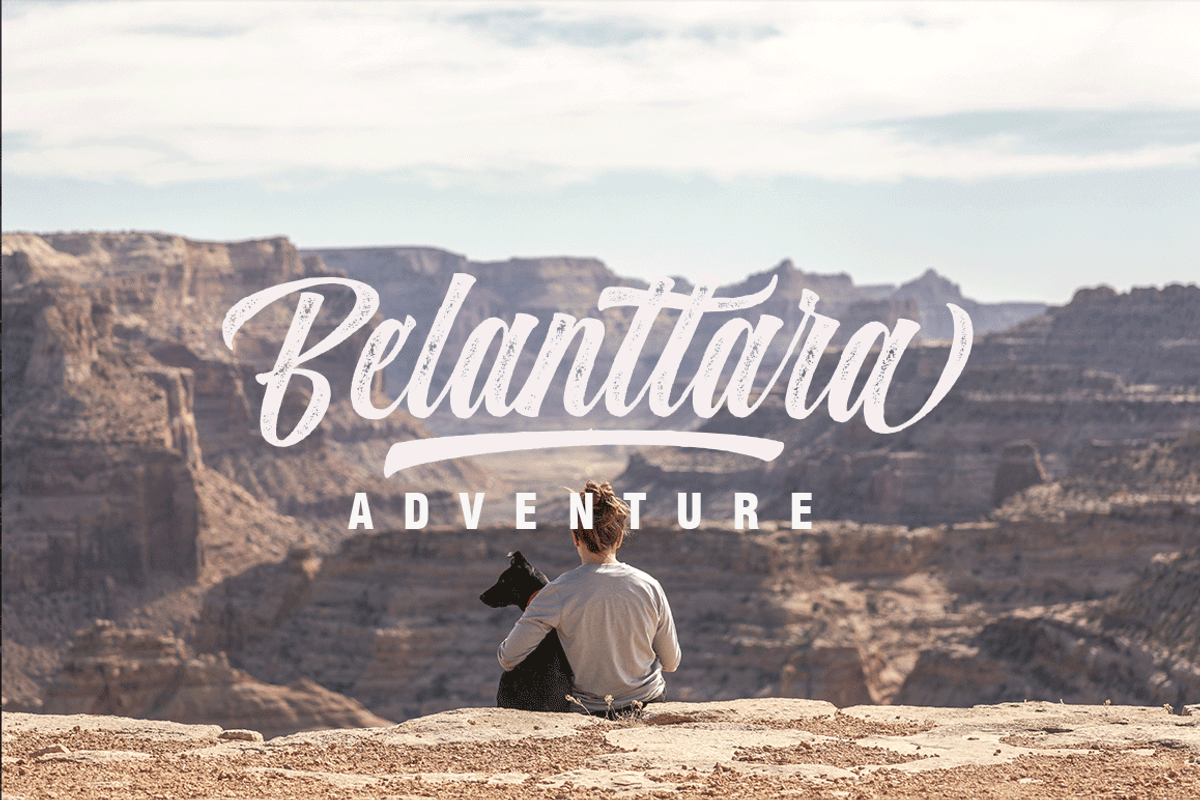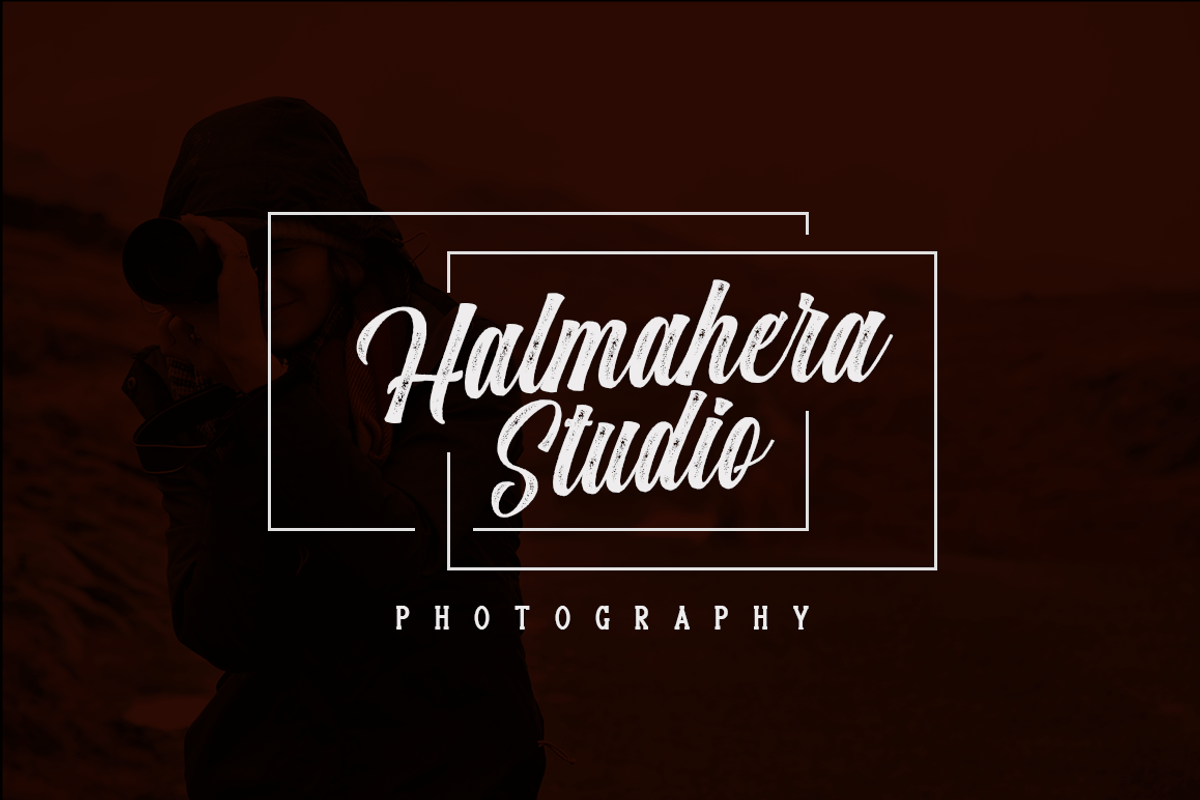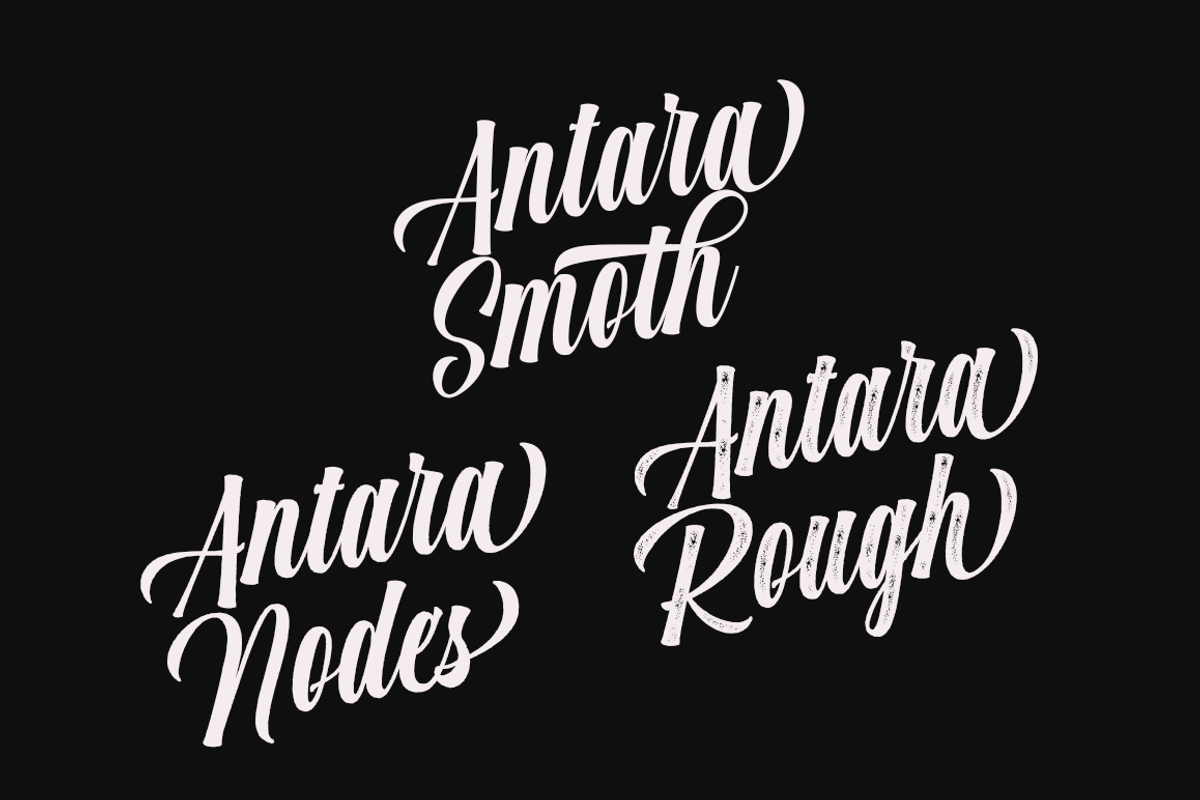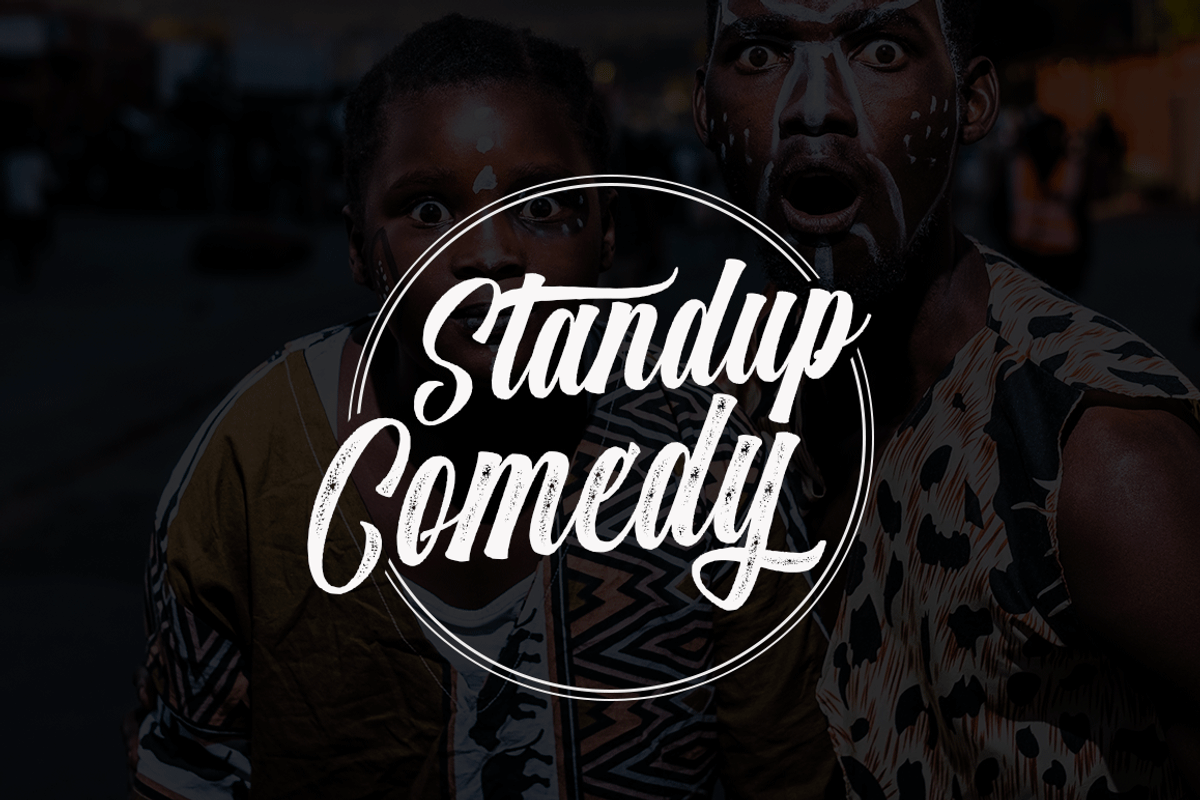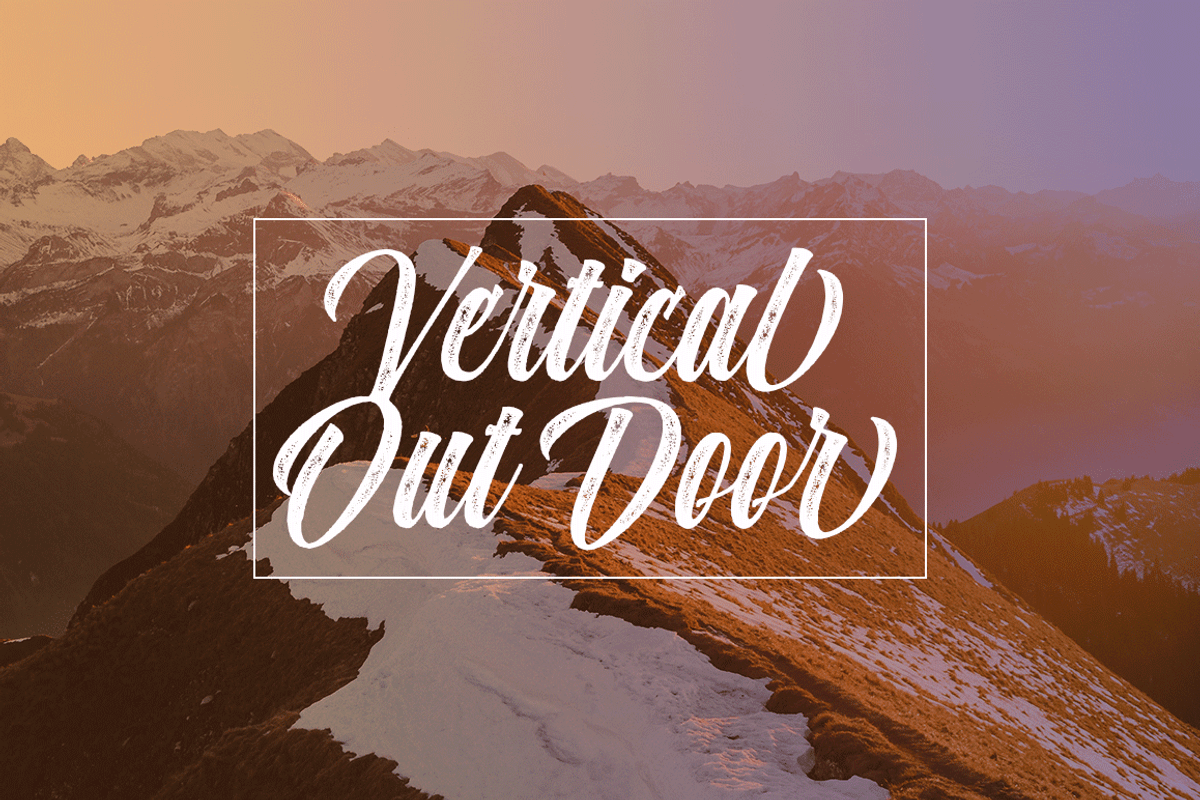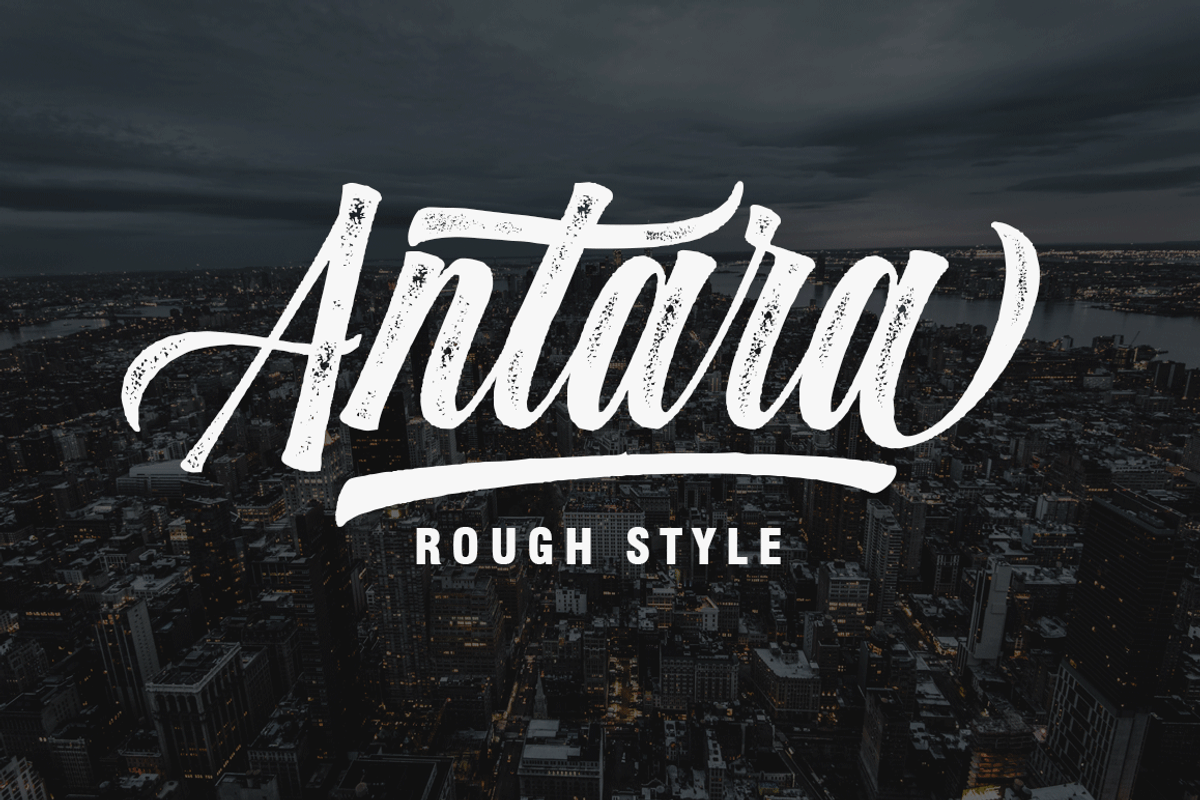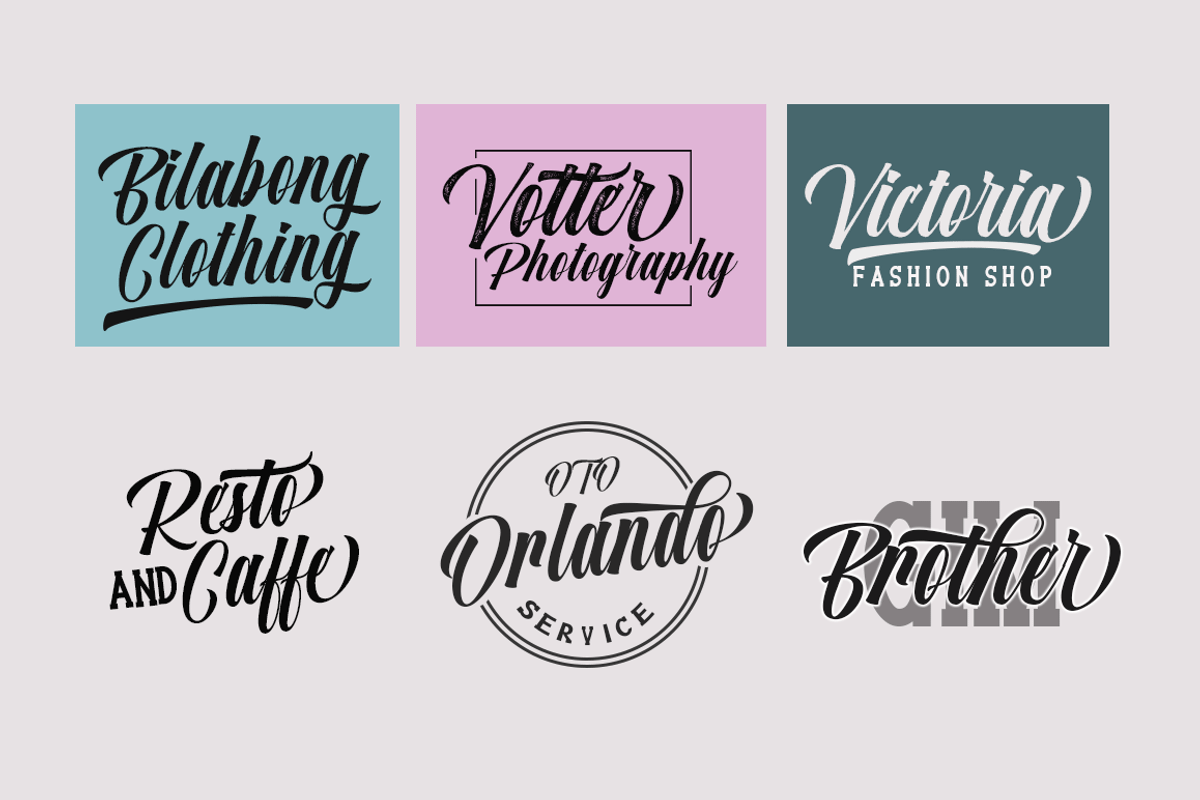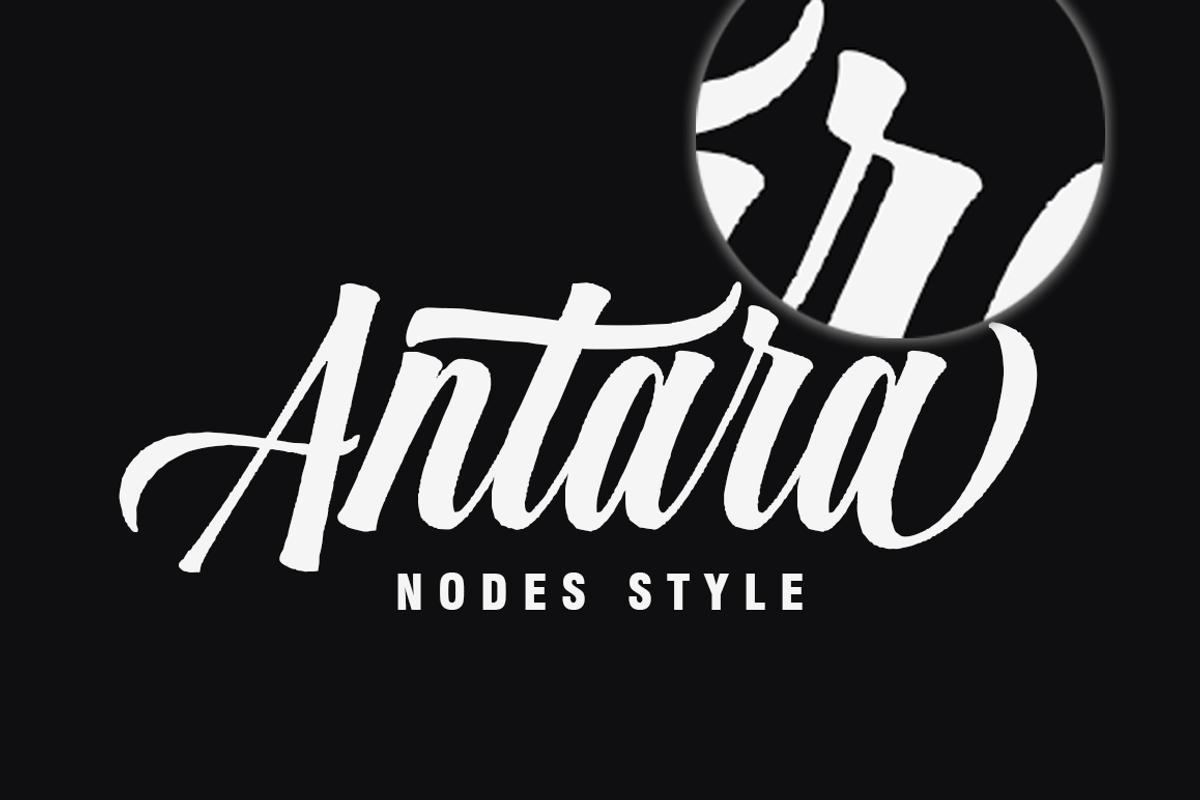
Antara (3 style fonts)
Antara is 3 style fonts, so, brush script that is beautiful and unique, it is a model of modern calligraphy typefaces, in combination with a calligraphy writing style.
Can be used for various purposes.such as headings, logos, wedding invitation, t-shirt, letterhead, lable, news, posters, badges etc. To enable the OpenType Stylistic alternates, you need a program that supports OpenType features such as Adobe Illustrator CS, Adobe Indesign & CorelDraw X6-X7.